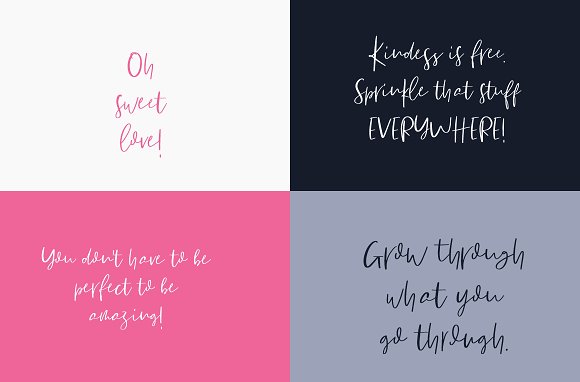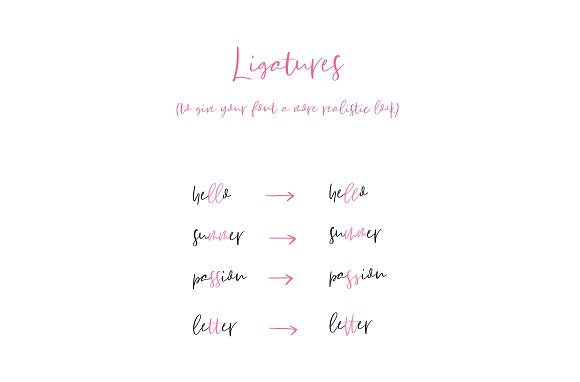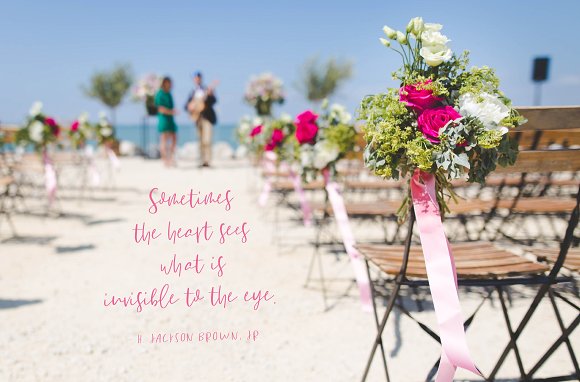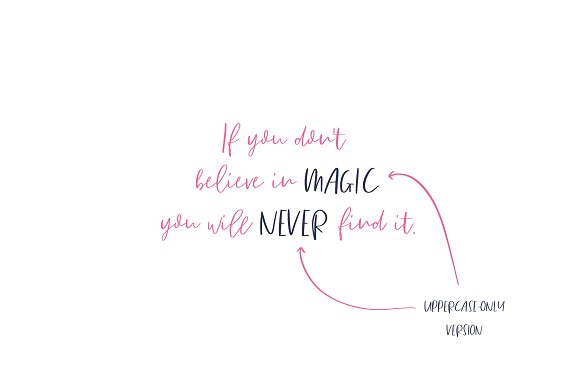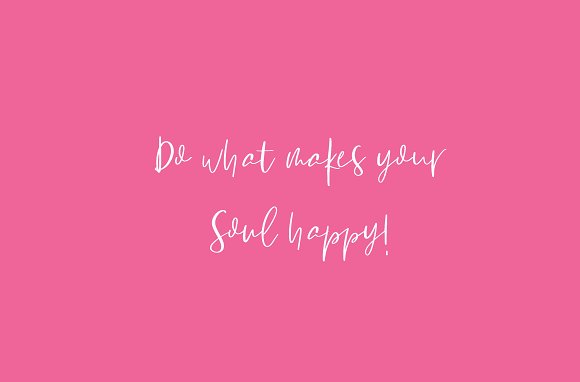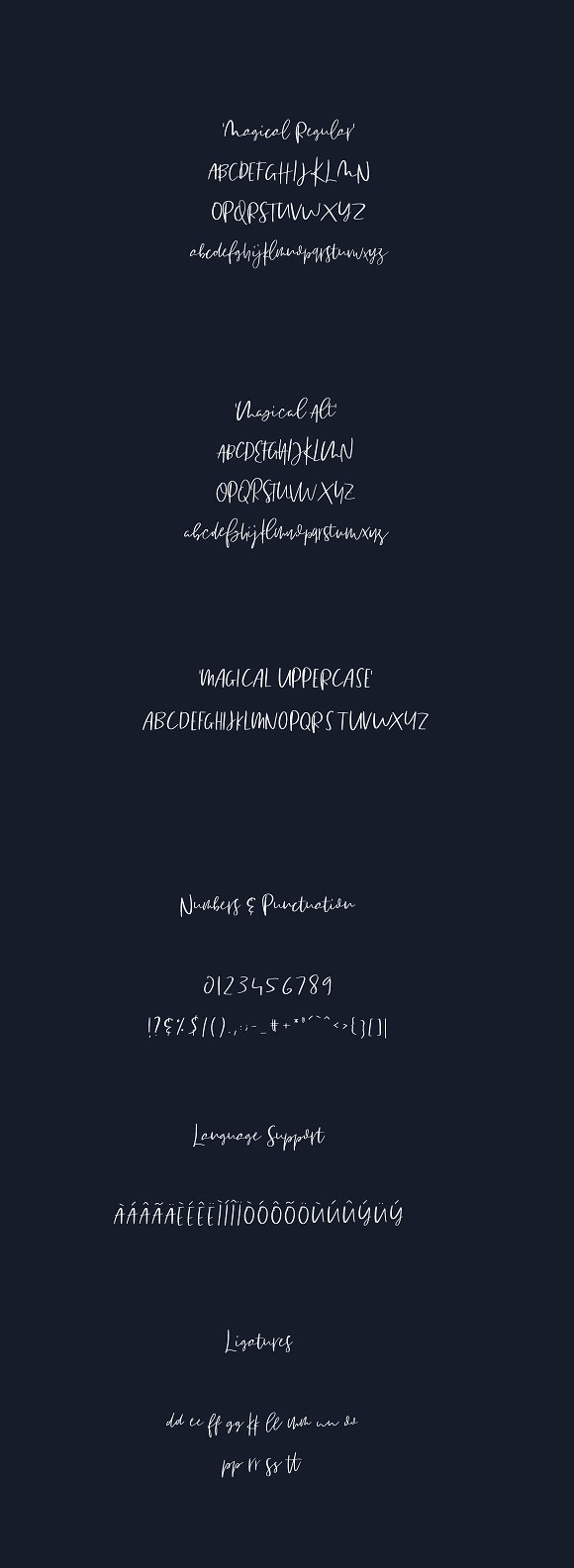
Magical Font
Magical is a handwritten brush script font that comes in three different versions (“Regular”, “Alternate” and “Uppercase”). Its elegant yet simple handwritten look makes it the perfect fit for logos, printed quotes, invitation cards, social media headers, product packaging, posters and a lot more!